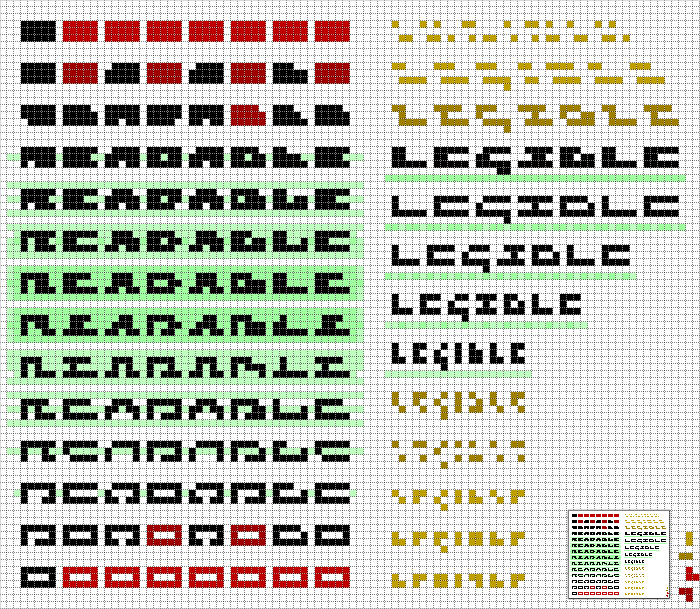
Aye, nice one opipik. I'm sure it's easier to fit more differentiation into 5 px.  I like the g, s and 4.
And it's quite readable, good job!
+ many disambiguations = a well-thought design in mono.
I'd say it's much more readable than your "improvement" of the 5x4 font, where you sacrificed readability for an uniform aesthetic.
1. You cannot really compare 5x5 and 5x4.
2. My strict 5x4 after your limited 5x4 was a proof of concept : the readability is damaged if we stretch the glyphs horizontally (but it's quite doable, though a lot more difficult than using the proportional/conventional glyphs).
I replied throughly there… I hope you'll learn the meaning of readability before referring to a less legible experiment ;-)
Readability v.s. legibility in very low-res raster text characters, (c) 2017-12-17 dpla.
• 'Readable' from the standpoint of a correct code point* (with an optional legibility);
• 'Legible' from the standpoint of a correct glyph shape (with a necessary readability).
Be aware that the both columns in this example only feature a selection of degradations.
* When you DUPLICATE a glyph, your font is broken and unusable for _any_ context of use;
If you cannot provide a complete US-ASCII, your creature is NOT A FONT, even as >=8-bit.